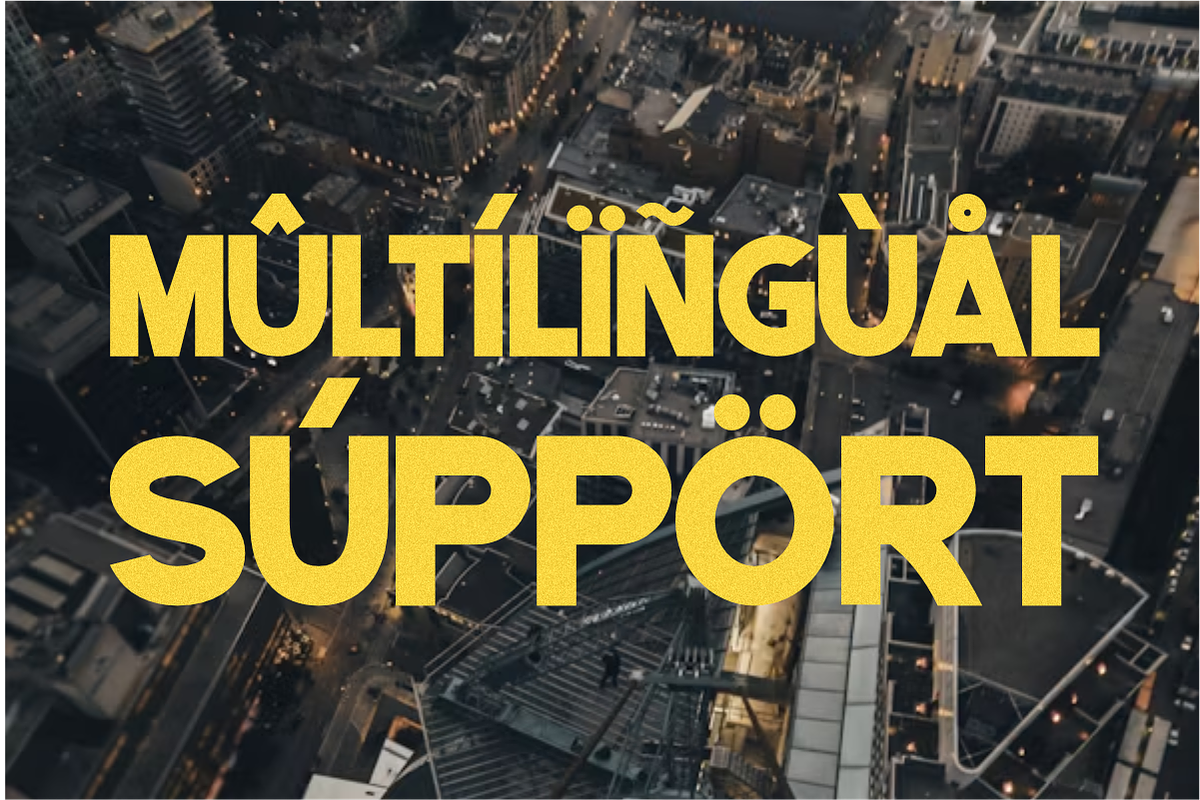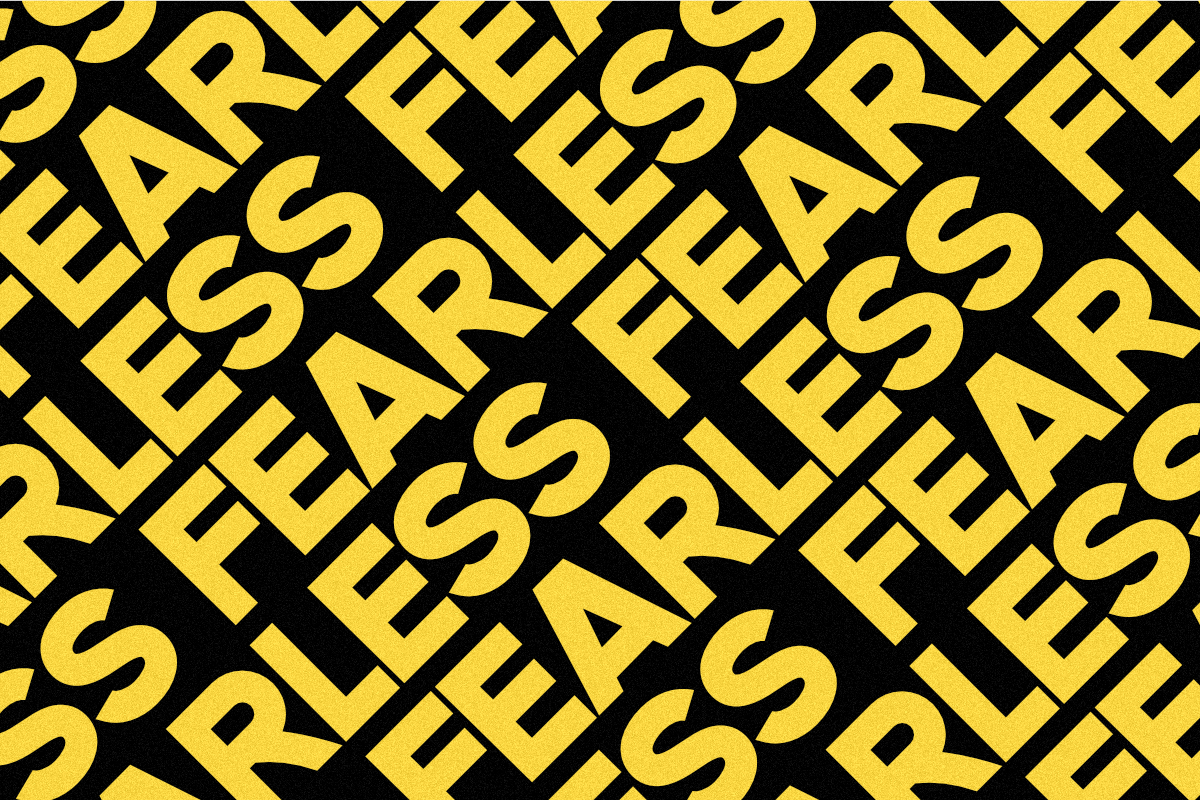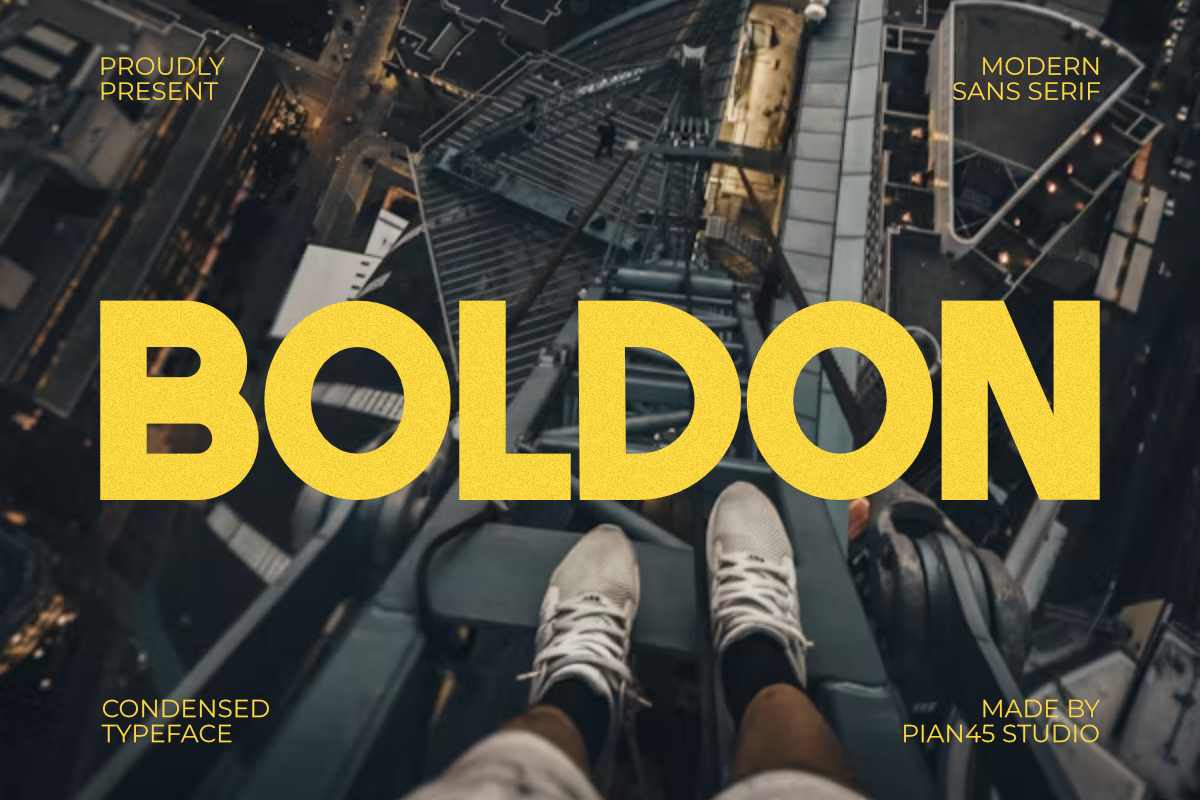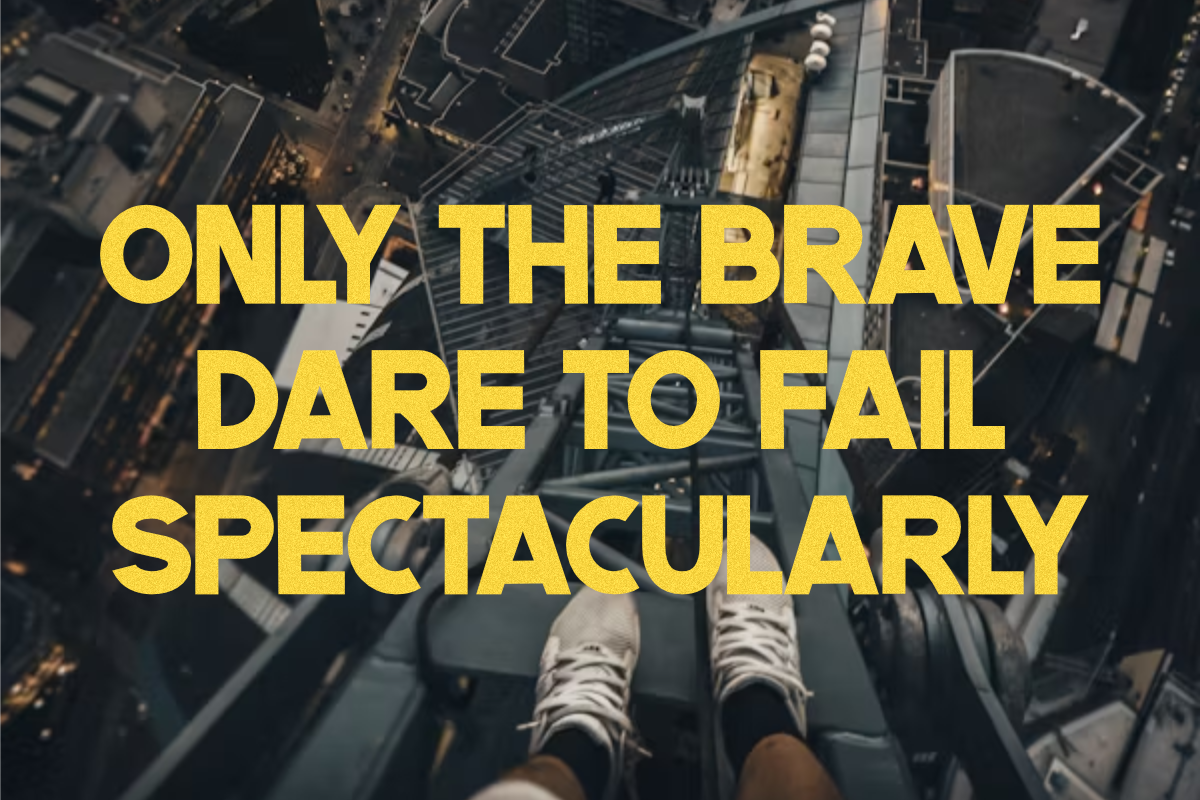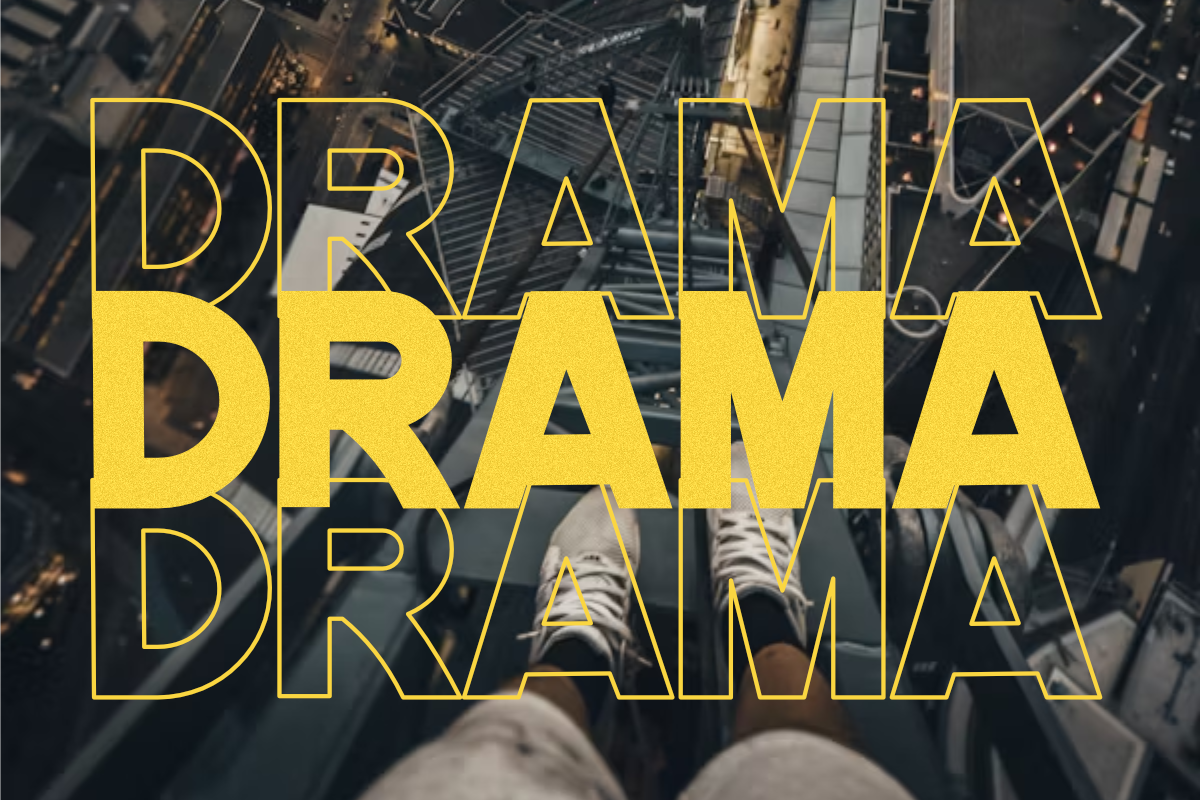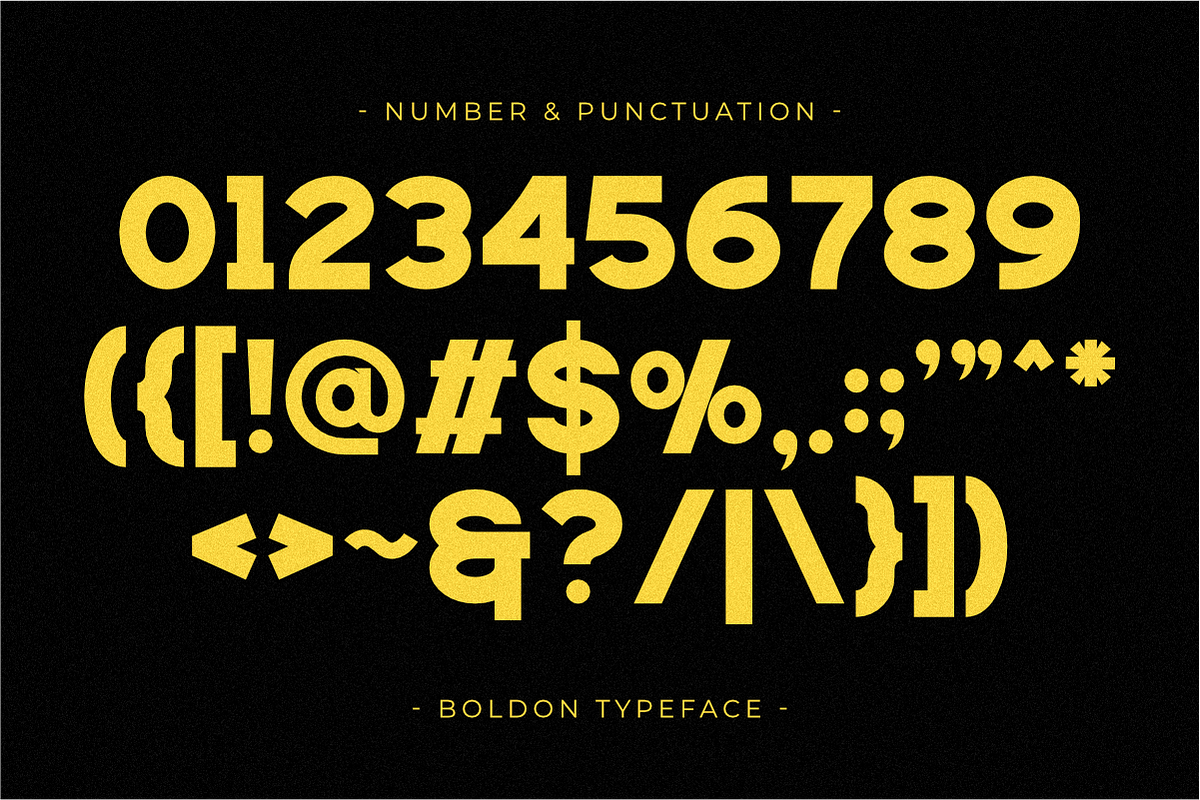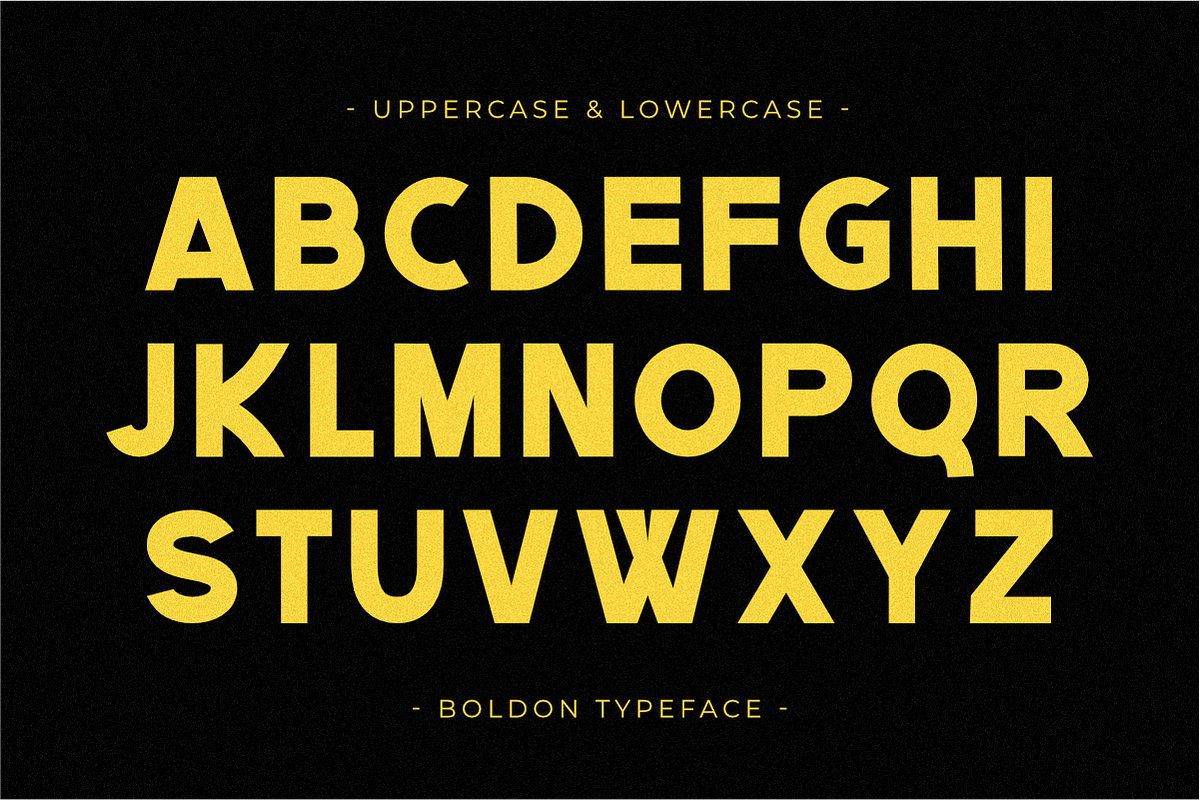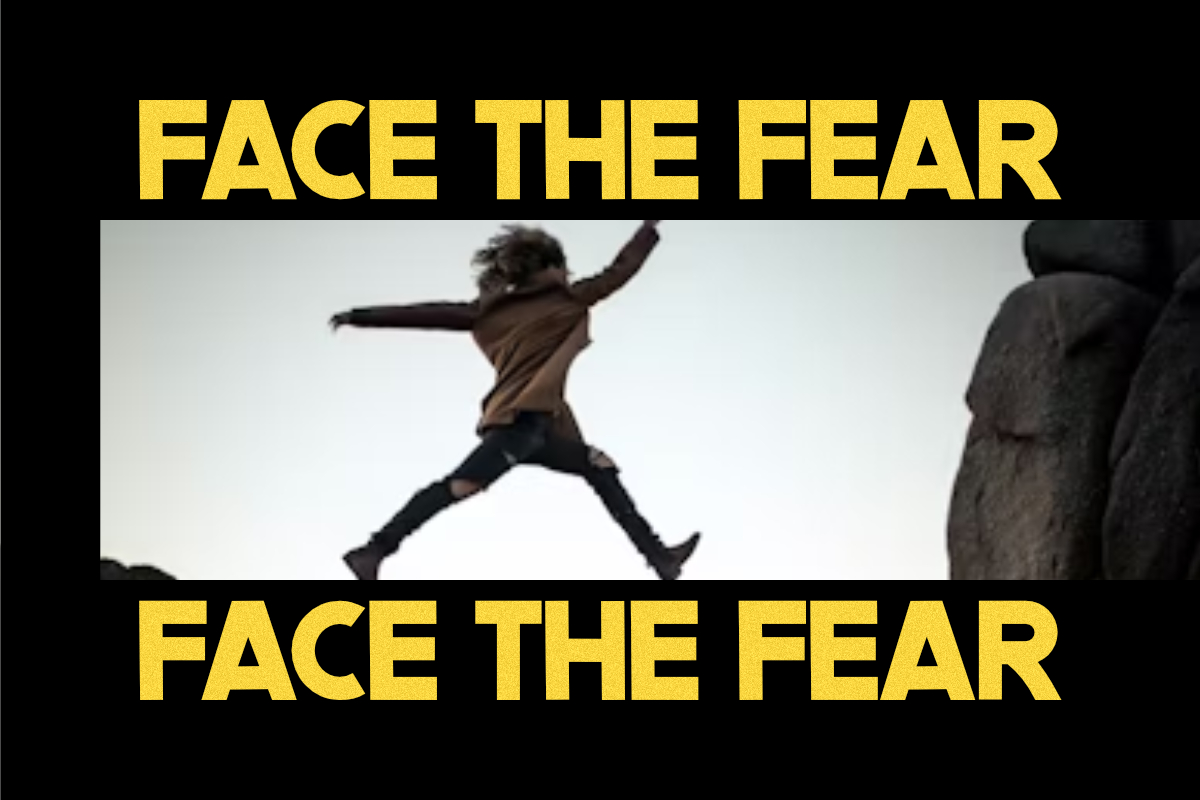
Boldon - Condensed Sans Serif Font
Boldon is an impactful and assertive Modern Sans Serif font designed for maximum visual weight. Its ultra-thick, condensed structure is perfect for high-impact branding, powerful editorial layouts, sports logos, and commanding headlines. This all-caps typeface delivers a sophisticated, contemporary, and instantly recognizable visual identity, making it essential for any project demanding a dominant, clean, and striking presence, especially for sales and promotional content like Black Friday.